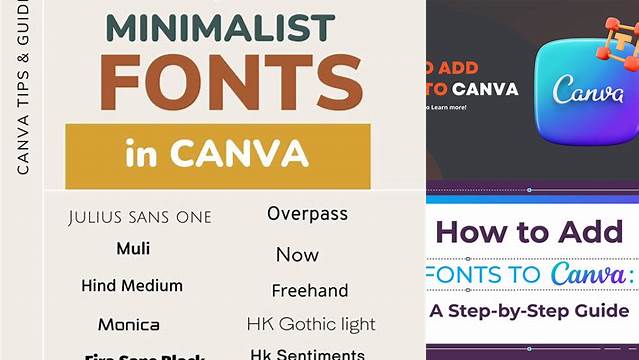
Add Fonts In Canva: A Beginner's Guide
Hey guys! Ever wondered how to jazz up your Canva designs with some awesome fonts? Well, you've come to the right place! Adding custom fonts to Canva is a fantastic way to inject your unique style and branding into your projects. Whether you're a seasoned designer or just starting out, this guide will walk you through everything you need to know about how to add fonts in Canva, ensuring your creations truly stand out. We will delve into the different methods, from uploading your own fonts to utilizing Canva's vast library, covering all the essential steps to make your designs pop. Ready to unleash your typographic creativity? Let's dive in!
The Power of Fonts in Canva
First off, let's talk about why fonts are so darn important in Canva. Think of fonts as the voice of your design. They communicate the tone, personality, and message of your project. A playful font can make your design feel approachable and fun, while a more formal font can lend an air of sophistication and professionalism. By selecting the right fonts, you can effectively convey your brand identity and captivate your audience. Choosing the right font can significantly influence how viewers perceive your content. It's like picking the perfect outfit; it sets the mood! Whether you're creating social media graphics, presentations, or marketing materials, the fonts you choose can make or break your design. A well-chosen font can draw the eye, emphasize key information, and create a cohesive visual experience. Conversely, using inappropriate or clashing fonts can confuse your audience and make your design look unprofessional. Canva offers a rich array of fonts, from classic serifs to modern sans-serifs, ensuring you'll find the perfect match for your creative vision. Experimenting with different fonts is key to discovering what works best for your brand and design goals. This isn't just about aesthetics, though – font choice also affects readability. Ensuring your text is easy to read is crucial for effective communication. Different fonts have unique characteristics that impact how the eye processes information. Some fonts are more readable at smaller sizes, while others are better suited for headlines or larger blocks of text. Selecting fonts that complement each other and the overall design is an art, and Canva provides the tools to make the process enjoyable and effective.
Adding Fonts in Canva: The Uploading Method
Okay, let's get down to the nitty-gritty of how to add fonts in Canva. One of the most exciting ways to spice up your designs is by uploading your own custom fonts. This is especially useful if you have specific fonts that align with your brand identity or if you just want to use something totally unique. The process is super straightforward, but there are a few key things to keep in mind. First, you need to make sure you have the proper licensing for the font you want to upload. This is super important because you can't just grab fonts from anywhere and use them commercially without permission. Make sure you own the font or have the necessary licensing rights. This usually means you've purchased it or have a license that allows you to use it in your Canva designs. Once you've got that sorted, you're ready to upload. The process is pretty simple, but you need to have a Canva Pro account or Canva for Teams to upload your own fonts. This is one of the awesome perks of having a premium account. To start, you'll need to head over to the Brand Kit section within Canva. You can find this by clicking on the “Brand” tab on the left-hand side of your Canva dashboard. Then, look for the “Brand Fonts” area. This is where you'll be able to add your custom fonts. Click the “Upload a font” button. A window will pop up, and you'll be prompted to browse your computer for the font files. Canva supports several font file formats, including .ttf, .otf, and .woff. Choose the font file you want to upload, and click “Open.” After a quick upload, Canva will ask you to confirm that you have the proper license to use the font. Just tick the box to confirm, and your font will be added to your Brand Kit. After the font has been uploaded, it becomes available in the font selection menu within the Canva editor. You can now select this custom font for any text elements in your designs. Uploading fonts makes your designs feel much more personalized and professional, enabling you to reinforce brand identity with distinct typography that stands out. So, take the opportunity to explore this feature to help you with how to add fonts in Canva.
Accessing Canva's Font Library
Now, let's talk about how to tap into Canva's fantastic built-in font library! This is a great option if you don't have specific fonts you need to upload or if you're just looking for some inspiration. Canva offers a massive collection of fonts, catering to all kinds of design styles and needs. Whether you're aiming for a sleek, modern look or something more classic and elegant, you're likely to find something that suits your project. The library is very extensive, and you can access it directly within the Canva editor. To find the font library, start by selecting a text element in your design. Then, go to the top toolbar, and you’ll see the font selection dropdown menu. Click on it, and you'll be presented with a list of all the fonts currently available in Canva. You can scroll through this list to browse the fonts, or, even better, you can use the search bar. The search bar lets you quickly filter and find fonts based on their names or the styles you are looking for. For instance, type in “bold,” “serif,” or “handwritten,” and Canva will suggest fonts that match your criteria. This feature saves you a ton of time. Canva organizes its fonts into various categories, such as “sans serif,” “handwriting,” and “display.” This categorization helps you to narrow down your choices. Canva also marks some fonts with a crown icon, indicating that they are part of the Canva Pro subscription. If you're on a free account, you won't be able to use these fonts unless you upgrade. Keep this in mind as you're browsing. When you find a font you like, simply click on it to apply it to your text element. The changes are immediately visible, allowing you to experiment and see how different fonts affect the overall look of your design. In Canva’s font library, you can also preview how a font looks by typing your text directly into the font menu. This instant preview is a useful feature to help you make quick decisions. Use this vast library effectively, and you'll be on your way to mastering how to add fonts in Canva and making your designs look amazing!
Font Pairing Tips for Beginners
Alright, now that you know how to get your hands on some awesome fonts, let's talk about a super crucial part of design: font pairing. Think of font pairing like choosing the right outfit. Some fonts look fantastic together, while others, well, they just don’t gel. This is something that can take your designs from amateur to professional in an instant. Choosing the right font combination can significantly impact your design's readability, style, and overall appeal. There are several strategies and tricks that can help you nail the perfect font pairings every time. A great place to start is by exploring font families. Font families are groups of fonts that share a common design and style but come in different weights and styles. They are typically designed to work well together. Using fonts from the same family is a safe bet and often results in a cohesive look. For example, you might use a bold weight for your headlines and a regular weight for the body text. Complementary pairings involve fonts that contrast in style but still work together harmoniously. One popular method is pairing a serif font with a sans-serif font. Serifs have small decorative lines at the ends of the letters, while sans-serif fonts do not. Combining these two styles can create a visually interesting and balanced design. For instance, you might use a classic serif font for headings and a clean sans-serif font for the body text, or vice versa. The trick is to find a balance, so that the fonts don't fight for attention, but instead complement each other. Another important thing to think about is contrast. Contrast can refer to various aspects of your fonts, such as their size, weight, and style. Using contrasting fonts can make your design more visually appealing and help direct the reader's eye. But, don't go overboard! Make sure the contrast is purposeful and supports the overall message. Using too many different styles can make your design look messy and confusing. Aim for 2-3 fonts at most, especially if you're just starting out. Choosing fonts that are versatile and work well in a range of contexts will also provide consistency throughout your designs. Canva also provides pre-made font combinations that you can use. These pre-designed pairings are a great starting point. They often include a headline font, a sub-heading font, and a body text font. This way, you don't have to start from scratch. As you get more comfortable with these basics, you can start experimenting with more complex pairings and find the styles that best match your creative vision. You'll master how to add fonts in Canva and elevate your design game!
Key Takeaways and Best Practices for Font Use in Canva
Alright, let's wrap things up with some key takeaways and best practices for font use in Canva! We’ve covered a lot, from uploading your custom fonts to navigating Canva's vast library and troubleshooting common issues. Now, let's distill all that information into a few essential guidelines to make your design process smoother and more effective. First and foremost, understand that consistency is key to establishing a professional look. Use a consistent font throughout your design, and stick to a limited number of fonts. Overdoing it can make your design feel cluttered and confusing. Choose fonts that complement each other and enhance readability. Don't be afraid to experiment, but always prioritize clarity. Keep in mind your brand identity when selecting fonts. Your fonts should reflect your brand's personality and message. If your brand is playful and fun, choose fonts that reflect that; if you're aiming for sophistication, opt for more elegant fonts. Remember to think about the context of your design. The font you choose for a poster will be different from the one you choose for a presentation. For headlines, consider fonts that grab attention and create impact. For body text, prioritize readability and ease of comprehension. Another important point is accessibility. Think about who your audience is and ensure that the text is easy to read, even for people with visual impairments. Use a font size that is appropriate for the design, and provide enough contrast between the text and the background. Finally, don't be afraid to ask for feedback. Get a second opinion on your design to see how it's perceived by others. Feedback can help you identify areas for improvement and ensure that your design effectively communicates your message. Armed with these tips and a solid understanding of how to use fonts in Canva, you're well-equipped to create stunning designs that truly shine. Now you are prepared to explore the world of typography and elevate your Canva designs!